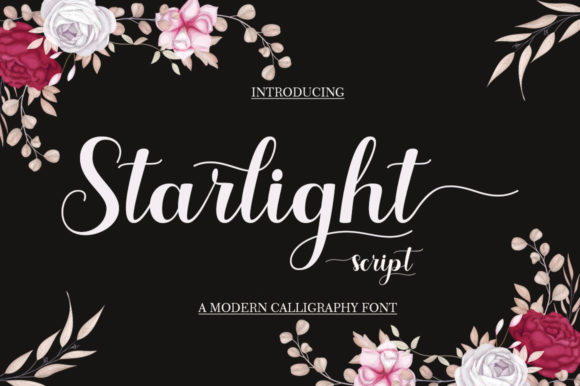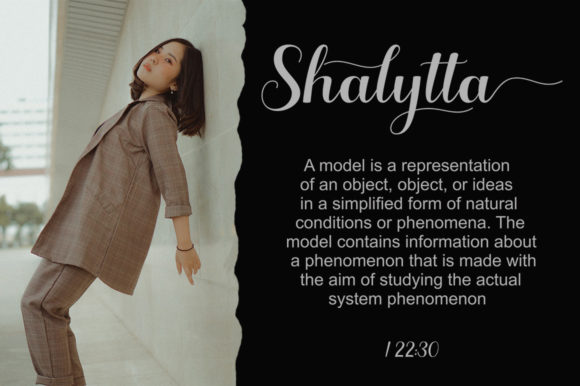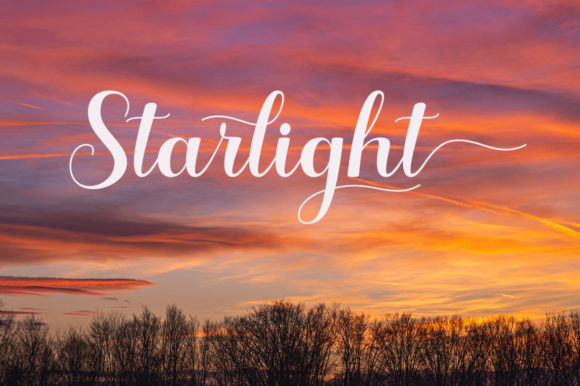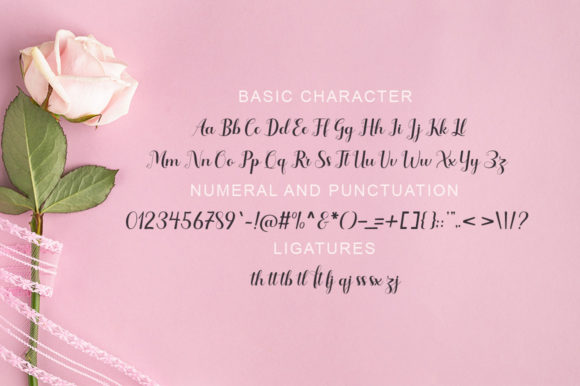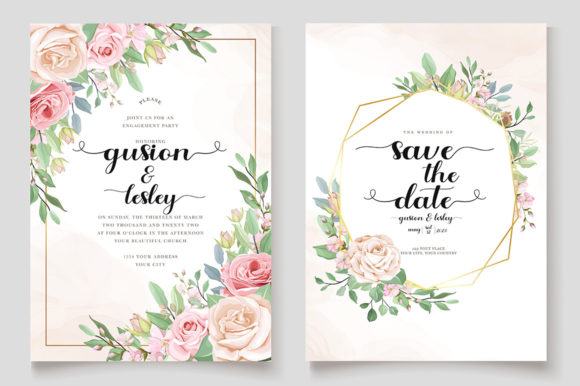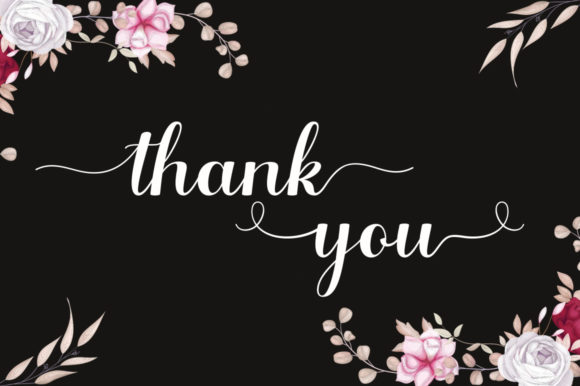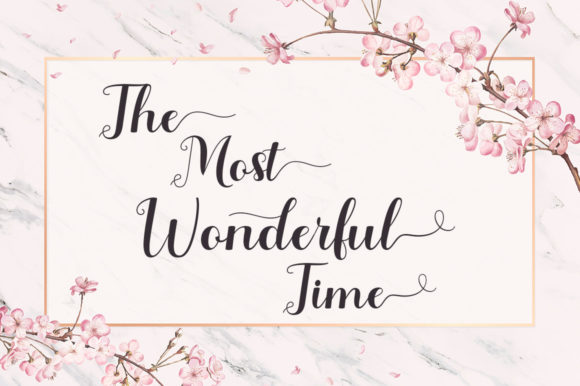
Starlight Script Font
Starlight Script Font: Elegant Typography for Luxurious Designs
Starlight Script is an exquisite script font that radiates elegance and luxury. Its graceful strokes make it ideal for branding projects, adding sophistication to designs.
Versatility in Branding Applications
In logos, Starlight Script elevates brand identity. Its ornate appearance conveys exclusivity, perfect for upscale businesses and high-end products.
T-shirt printing benefits from Starlight Script’s allure. Its intricate details create stunning designs that exude sophistication on apparel and accessories.
Enhancing Creative Products
Starlight Script brings life to packaging designs, labels, and product tags. Its lavish aesthetic gives products a premium look, appealing to discerning consumers.
The font shines in editorial designs like magazine layouts and book covers. It adds opulence to lifestyle and fashion publications.
Starlight Script in Special Occasions
Invitations and event materials benefit from Starlight Script’s sophisticated look. It adds glamour to wedding invitations, gala dinners, and exclusive gatherings.
Digital Applications
In digital contexts, Starlight Script creates luxurious elements. It’s versatile for social media graphics and website headers, enhancing online branding.
Conclusion: A Font for Opulent Expression
Starlight Script is a gorgeous font that brings refinement to various projects. From branding to t-shirt printing and creative products, it adds a sense of grandeur to designs. Its intricate details make it perfect for contexts requiring elegance and luxury.